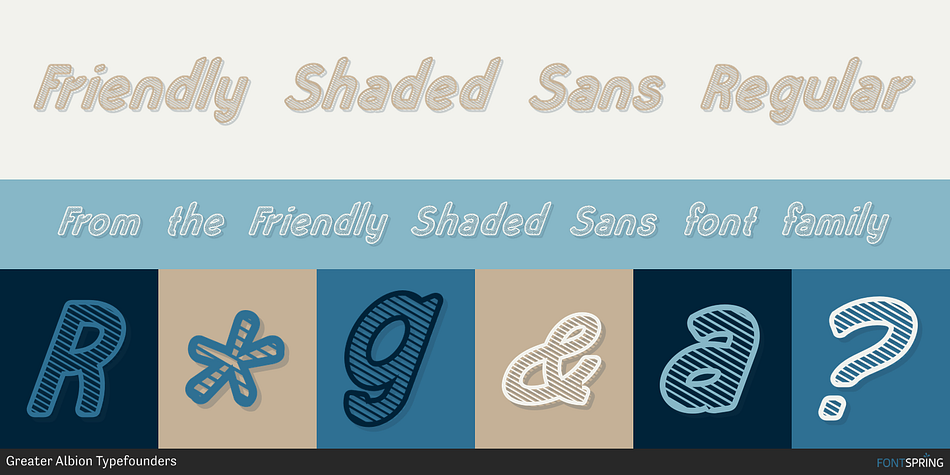
Friendly Shaded Sans Regular
Friendly Shaded Sans is a display sans font published by Greater Albion Typefounders.
‘FRIENDLY SHADED SANS’ is just what the name says.
‘FRIENDLY SHADED SANS’ is just what the name says. It’s a chubby and cheerful
Sans Serif typeface that is ideal for poster work, headings and informal design generally.